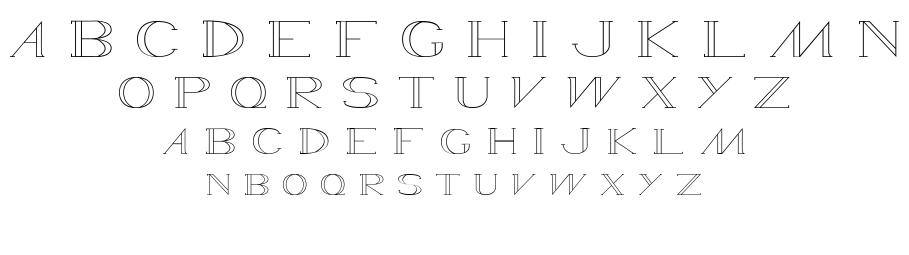
WAMED is a font that I started creating while messing around with lines and type. This is the first released version, it’s an All Caps font in Outline style. Solid version coming soon. Still gotta tweak some things but feel free to download Version 1. It’s free!